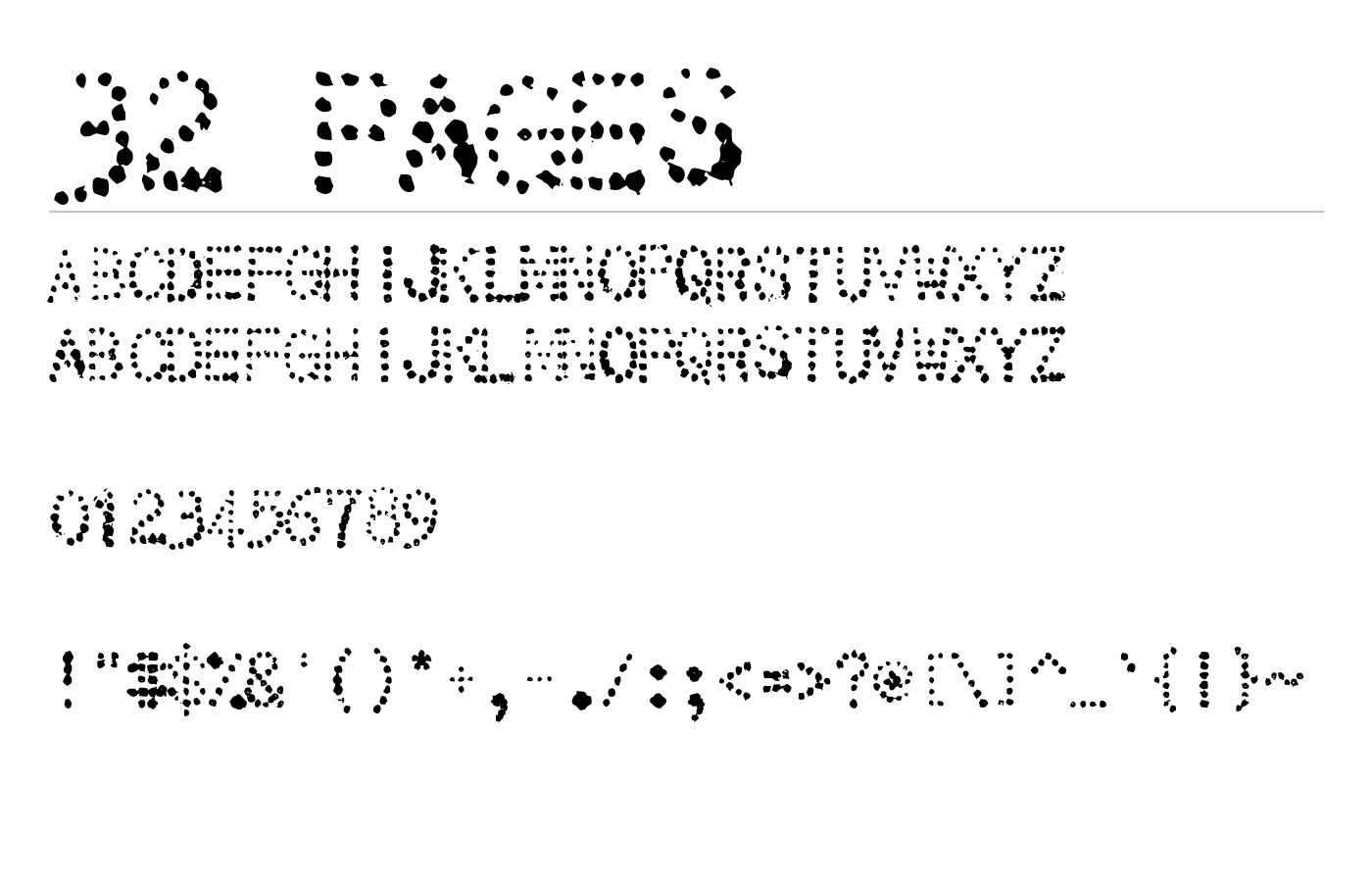
32 Pages is a playful sans serif display font characterized by its unique dotted texture that forms each character, giving it a casual and organic feel. The letters have a consistent, medium width and height with soft, rounded edges created by the irregular dot pattern, making it ideal for eye-catching headlines, creative branding, or artistic posters where a distinctive, informal vibe is desired. This font works best in large sizes to showcase its dot-based design, lending a fresh, fun, and modern personality to any visual project.
32 pages Font
About 32 pages Font